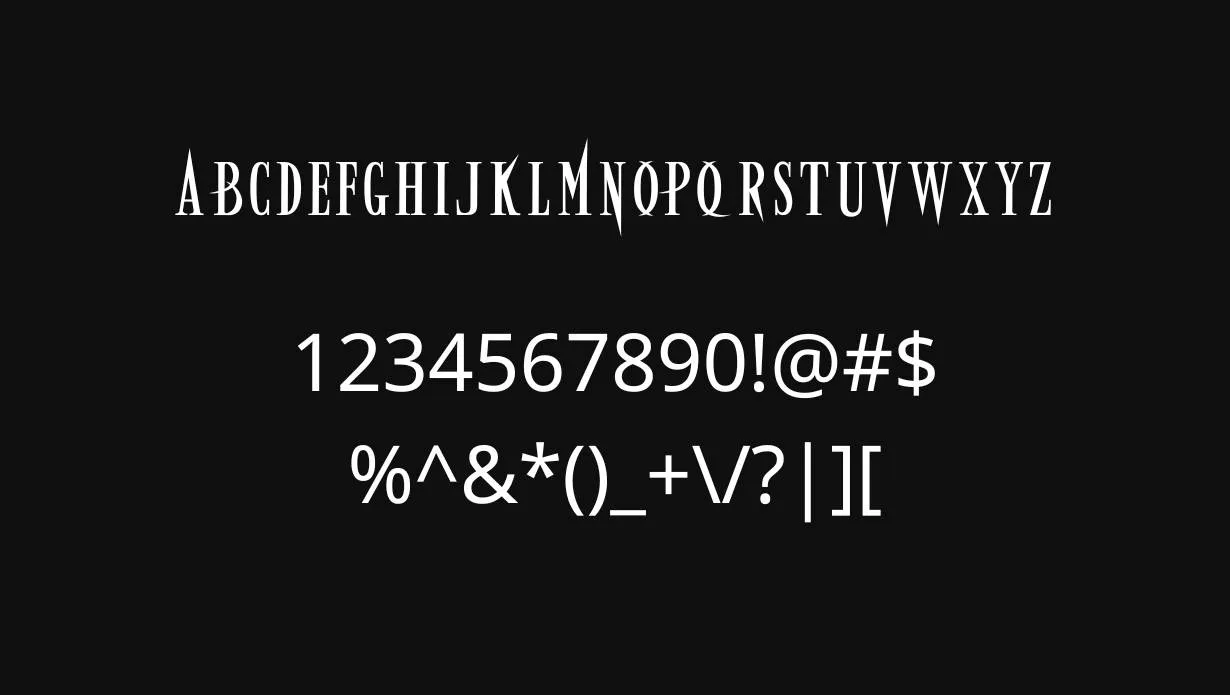
Unleash your creativity with the bold and monstrous characters of Monster Font. Its big, attention-grabbing letterforms are perfect for making a statement.
| Name | Monster Font |
| Designer | Gilang Maulana |
Whether you’re creating Halloween-themed materials, eye-catching headlines, or any project that calls for a touch of the extraordinary, Monster Font adds a playful and theatrical quality to your text.